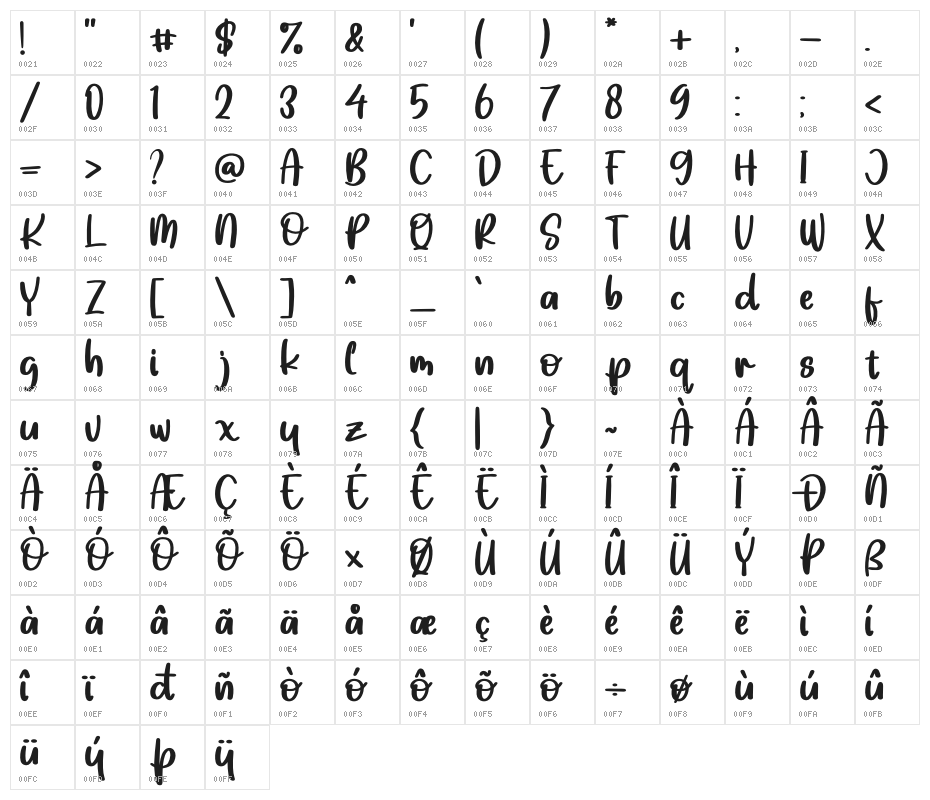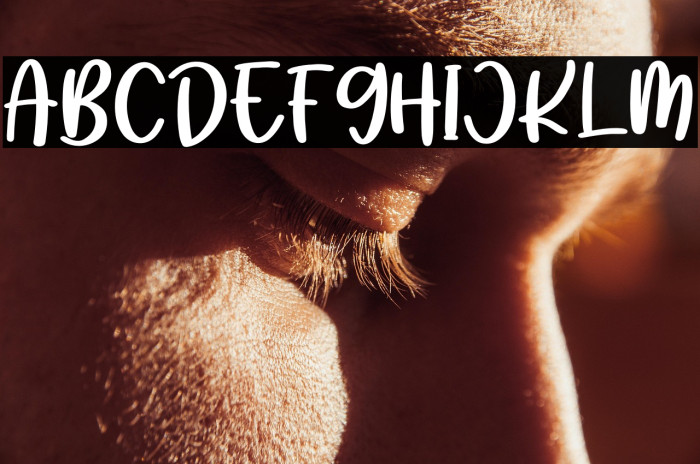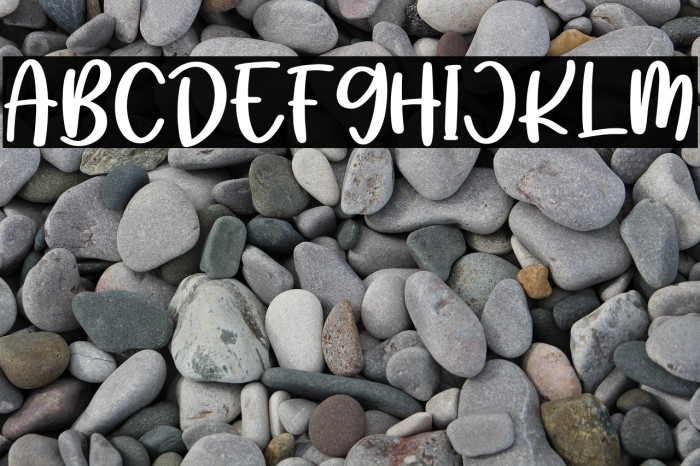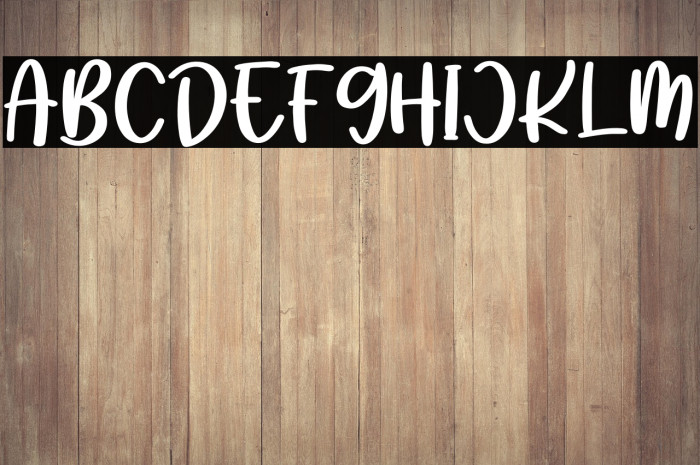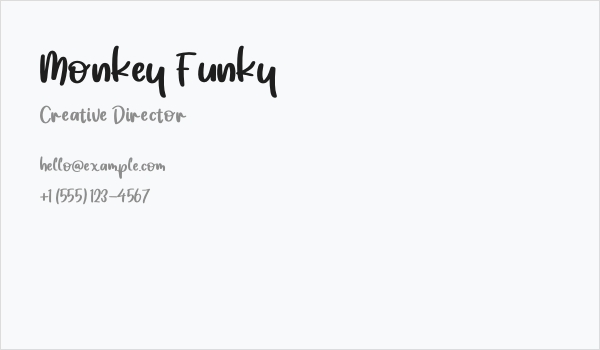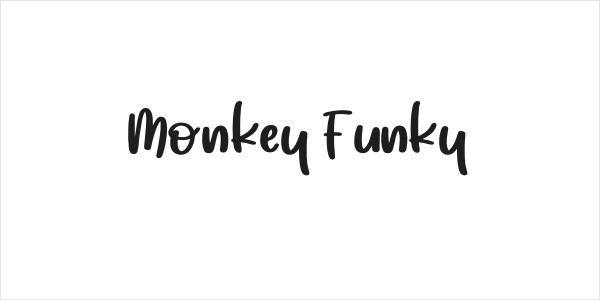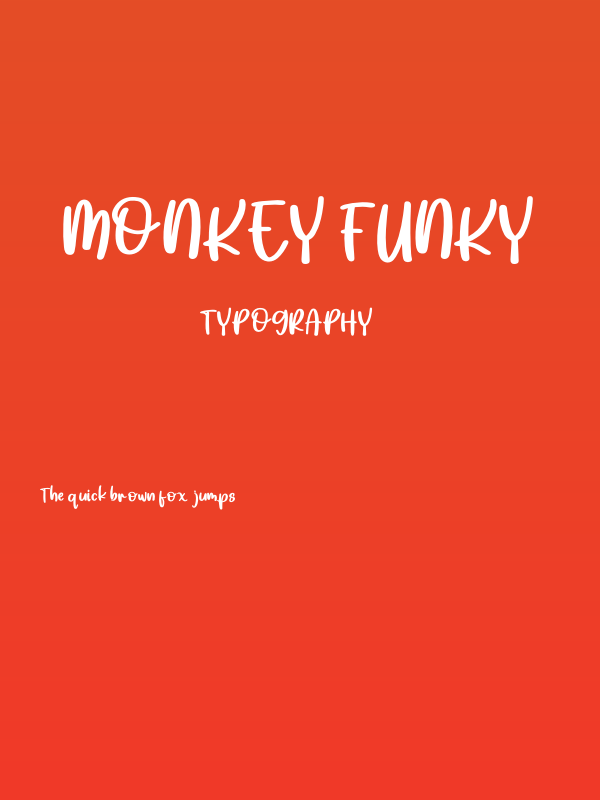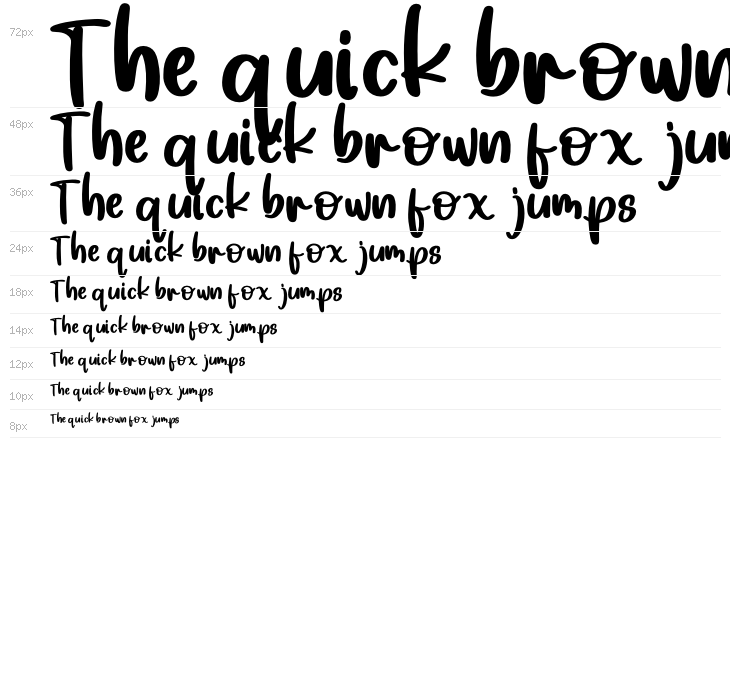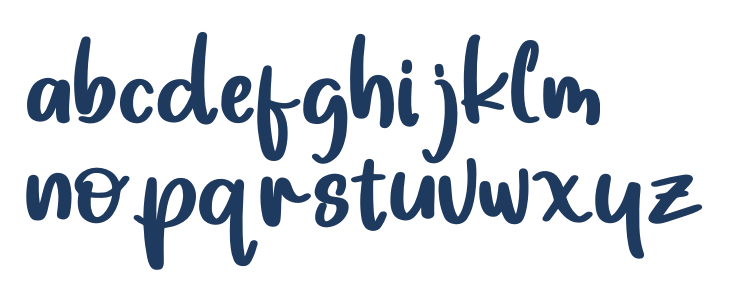
Monkey Funky Font
Monkey Funky Description
This font features a playful and energetic handwritten style, characterized by its bold and rounded letterforms. The strokes are thick and consistent, giving it a strong presence on the page. The letters have a slight slant, adding a dynamic and informal feel. The uppercase and lowercase letters are well-balanced, with a quirky charm that makes it stand out. The numbers and special characters maintain the same lively aesthetic, making it versatile for various design needs.
| Proposed Projects | Ideal for children's books, playful branding, greeting cards, and social media graphics. |